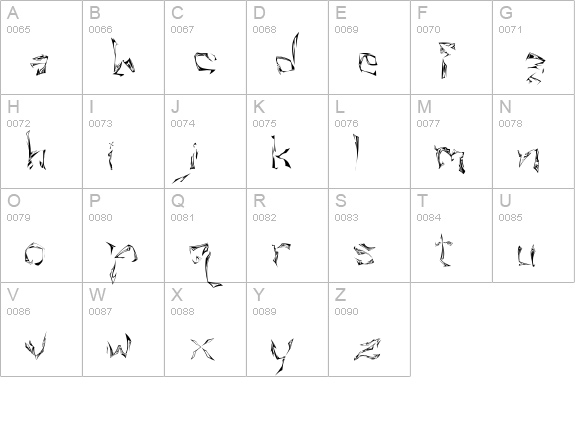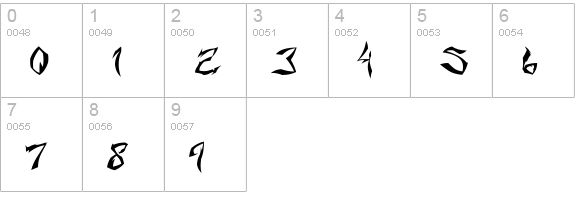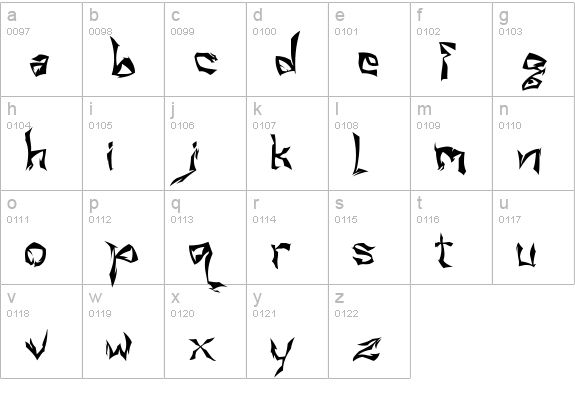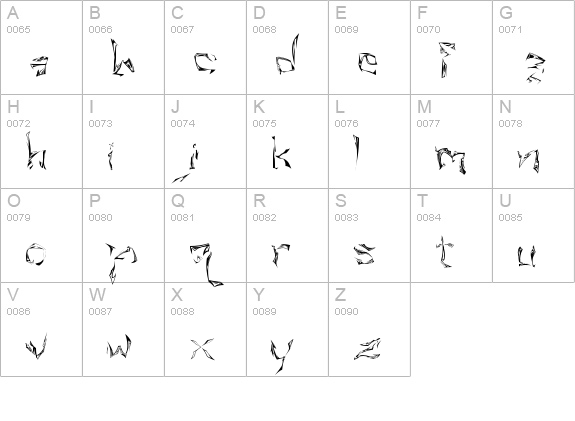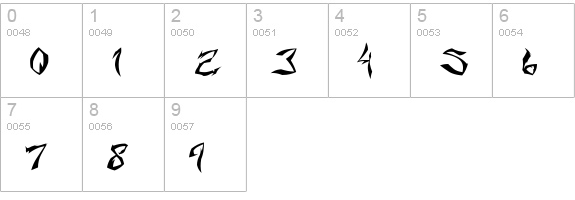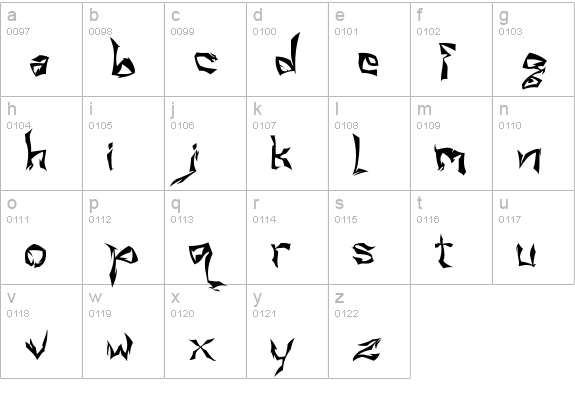
villain Font Details
Introducing the mesmerizing and enigmatic Villain Font, a captivating typeface that exudes darkness, mystery, and an undeniable sense of villainy. With its sharp edges, twisted curves, and sinister undertones, this font commands attention and leaves an indelible mark on any design it graces. Villain Font is the epitome of wickedness, making it the perfect choice for all your villainous endeavors. Whether you're crafting a menacing movie poster, designing an eerie book cover, or creating an ominous logo, this font will effortlessly bring your dark visions to life. But what sets Villain Font apart from the rest is that it is not only powerful, but also free! Yes, you read that right. This captivating typeface is freely available to download at FontsMarket.com, providing you with unrestricted access to its malevolent charm. Now, you can unleash your creativity without any constraints or limitations. With its wide range of characters and impeccable details, Villain Font allows you to delve into the depths of villainy, expressing your darkest thoughts through typography. Its versatility ensures that it can be used in both digital and print mediums, guaranteeing that your designs will leave a lasting impression. So, whether you're an aspiring graphic designer, a seasoned professional, or simply someone who appreciates the allure of the dark side, Villain Font is here to accompany you on your wicked journey. Don't miss out on the opportunity to download this exceptional font for free at FontsMarket.com and let your villainous creativity run wild. Embrace the darkness and let Villain Font be your partner in crime.